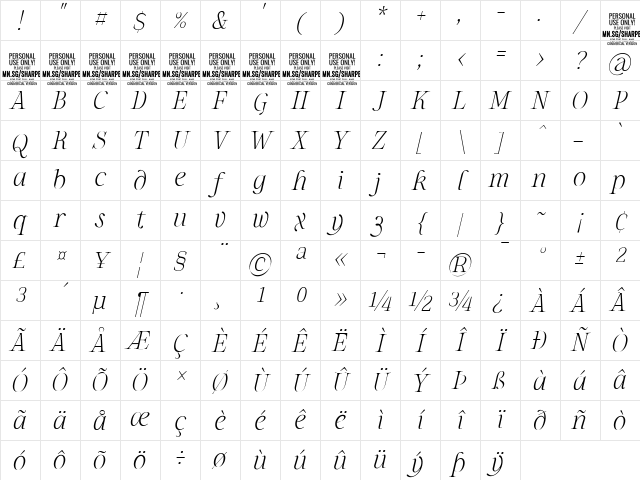
Sharpe PERSONAL Thin Italic Free Font
Sharpe PERSONAL Thin Italic
Style: Thin Italic
Foundry: Mans Greback
Designer: Mans Greback
Year: 2019
Design Context for Sharpe PERSONAL
Sharpe PERSONAL is a composed and adaptable typeface that performs quietly and consistently across a wide range of design contexts. The slanted form adds forward momentum and visual energy. Its slender proportions lend an understated elegance to any composition.
Pro Tip: Use Sharpe PERSONAL for emphasis, pull quotes, and subheadings where its slanted energy can add rhythm to the layout.